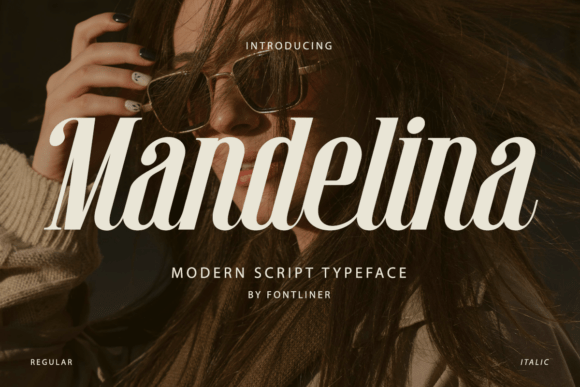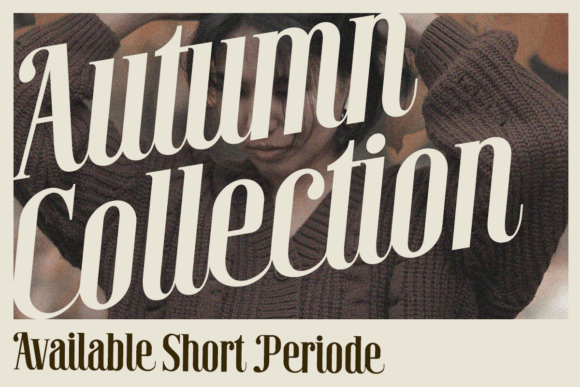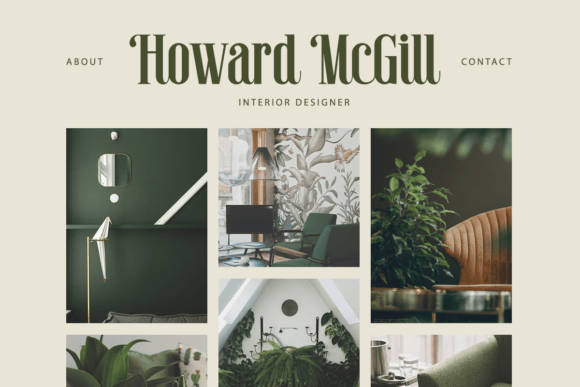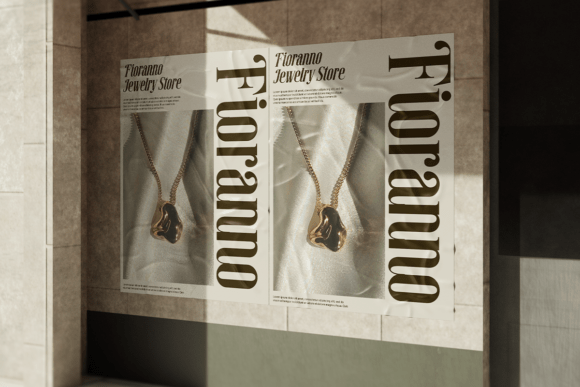
Mandelina Font: Modern Serif Script for Elegant Logo Design
About the Mandelina Font
We are excited to introduce Mandelina Font, a must-have typeface for any serious designer. Mandelina is a modern script fonts that connect one another with serif font characters. This font is perfect for your creative projects, such as logos, printed quotes, invitations, cards, product packaging, letterheads, clothing, web designs, magazines, books, etc.
Mandelina’s elegant yet playful personality makes it ideal for branding projects requiring a touch of sophistication, particularly logos, short headlines, and packaging designs for luxury or lifestyle products. It also works well for invitations and stationery, adding a touch of handwritten charm. However, its script nature makes it unsuitable for body text or lengthy paragraphs; readability suffers at smaller sizes.
For optimal visual harmony, pair Mandelina with a clean sans-serif like Montserrat for a modern contrast, or a classic serif like Garamond for a more timeless feel. A geometric sans-serif such as Futura could also create a striking juxtaposition, depending on the desired brand aesthetic. Avoid pairing it with other script fonts, which would create visual overload.
Mandelina’s overall mood is sophisticated and approachable, making it a versatile choice for brands aiming for a balance of elegance and approachability. Its detailed serifs lend a touch of vintage charm, avoiding a purely modern, stark feel.